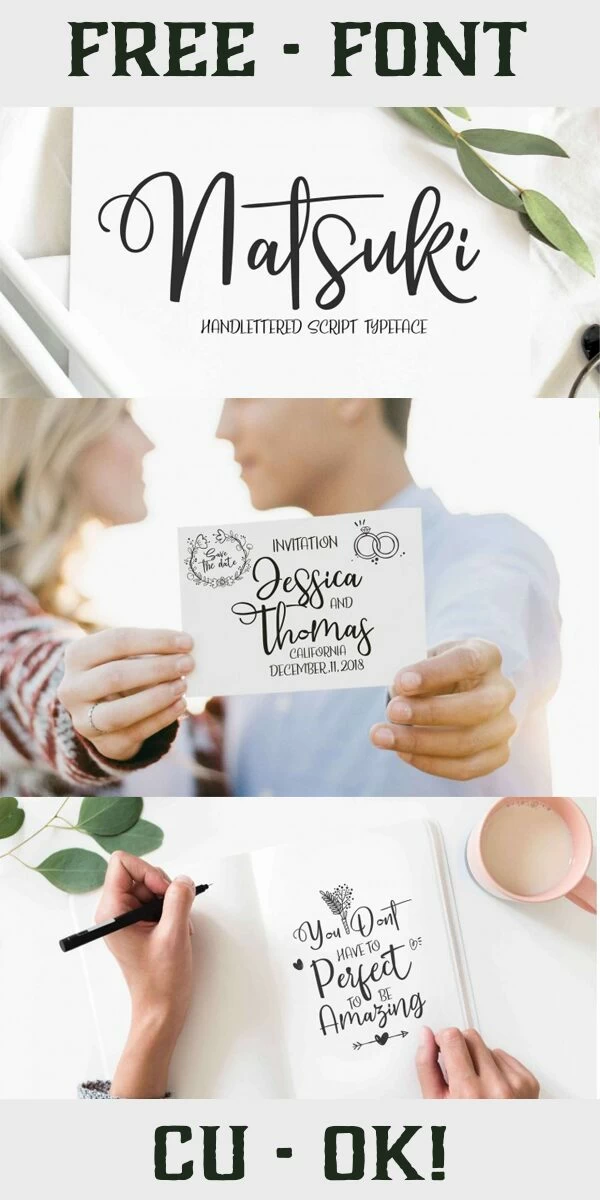
*Free Natsuki Font:
Today I am featuring a gorgeous new Free Script Font
called Natsuki!
Perfect for wedding invites
or any pretty cut file your working on!
But its look is rather different from what we see on your image: letters are not connected but they are quite separated some of the others.